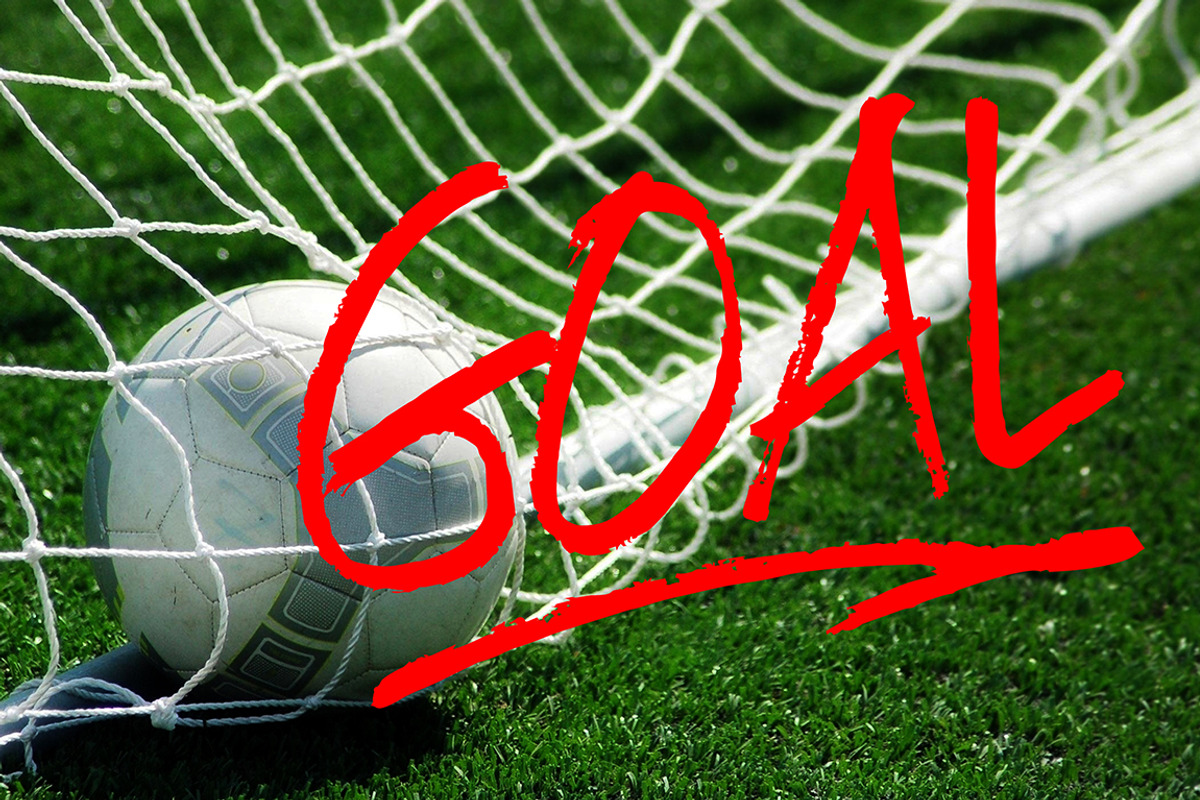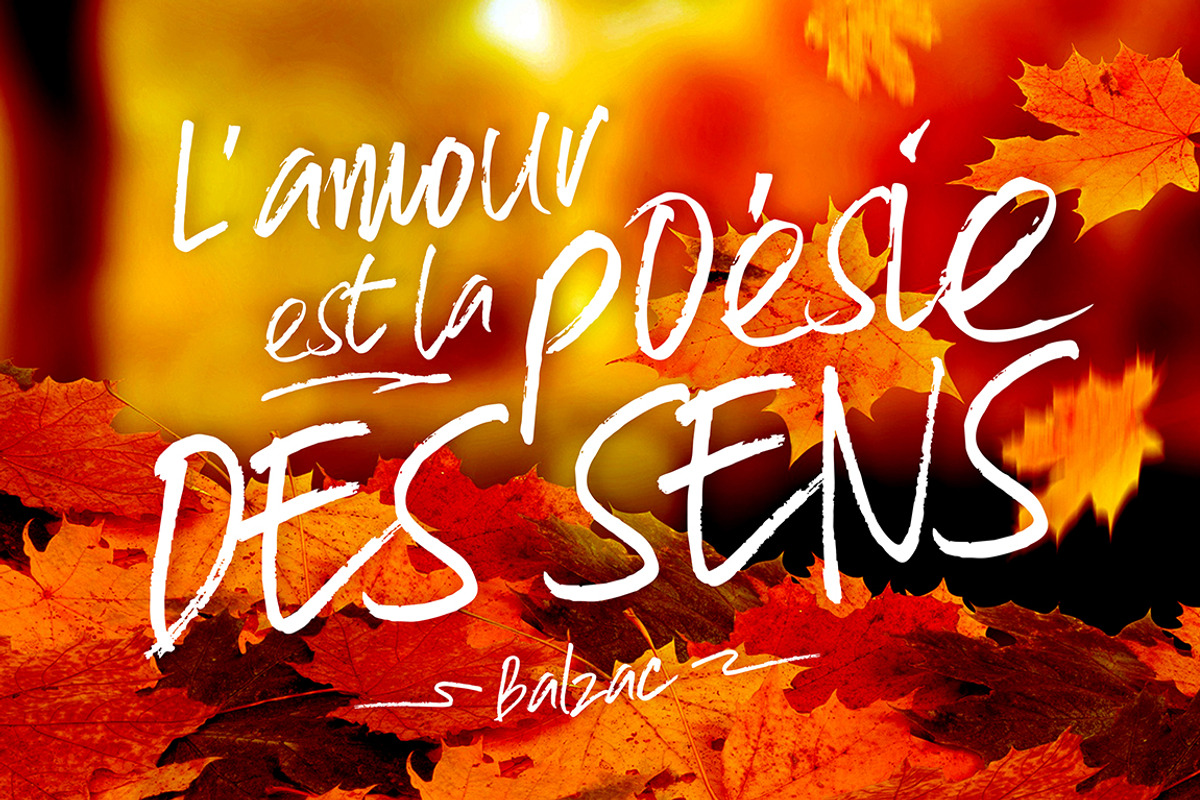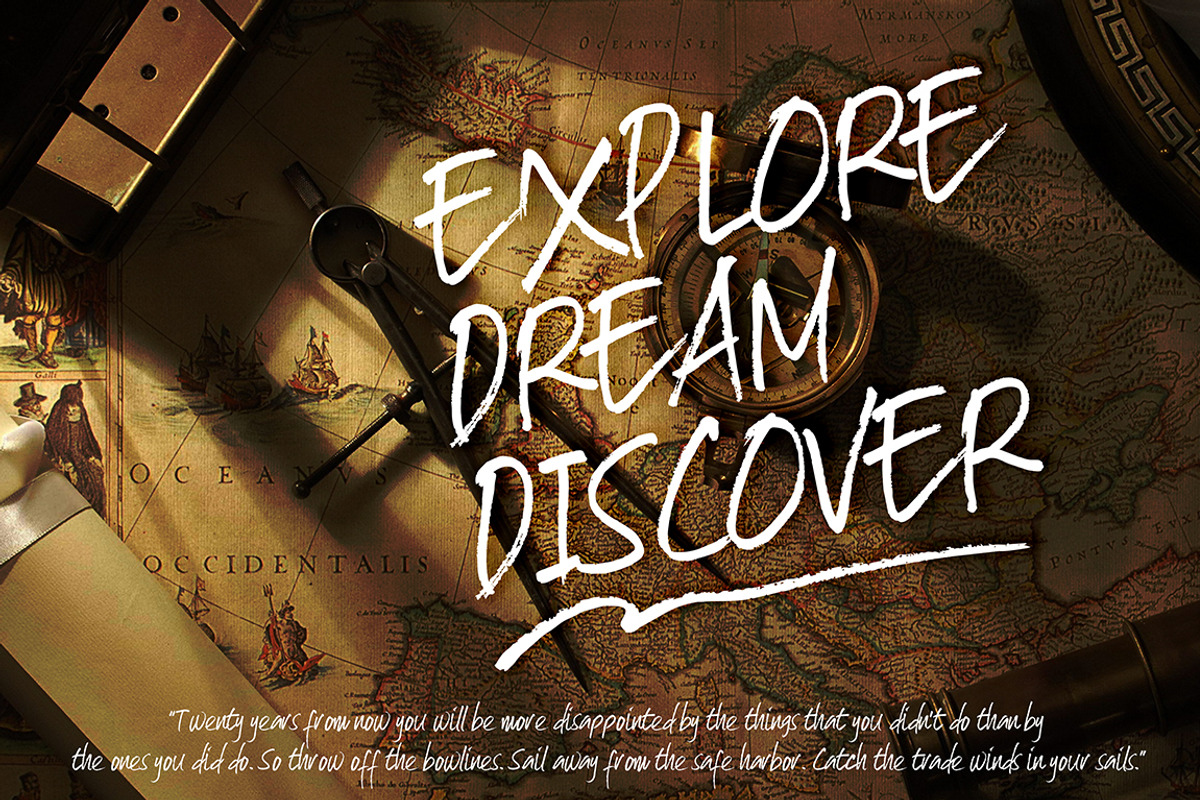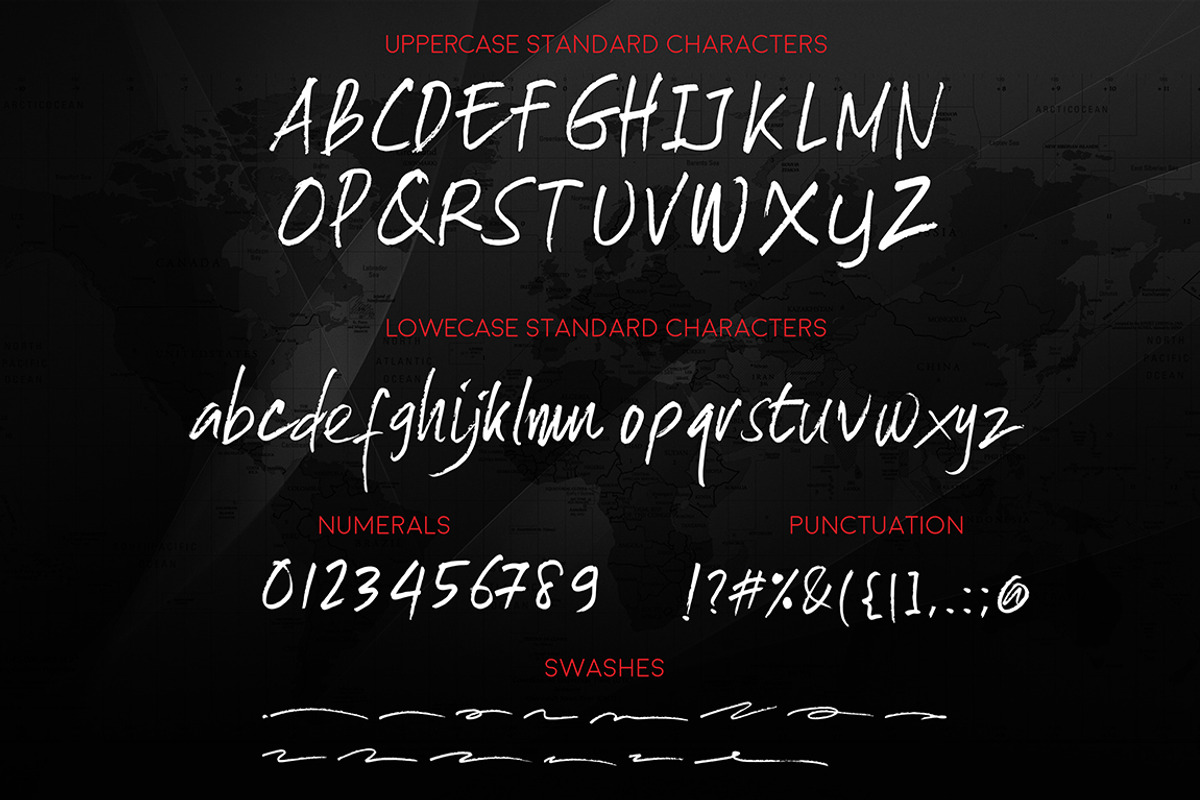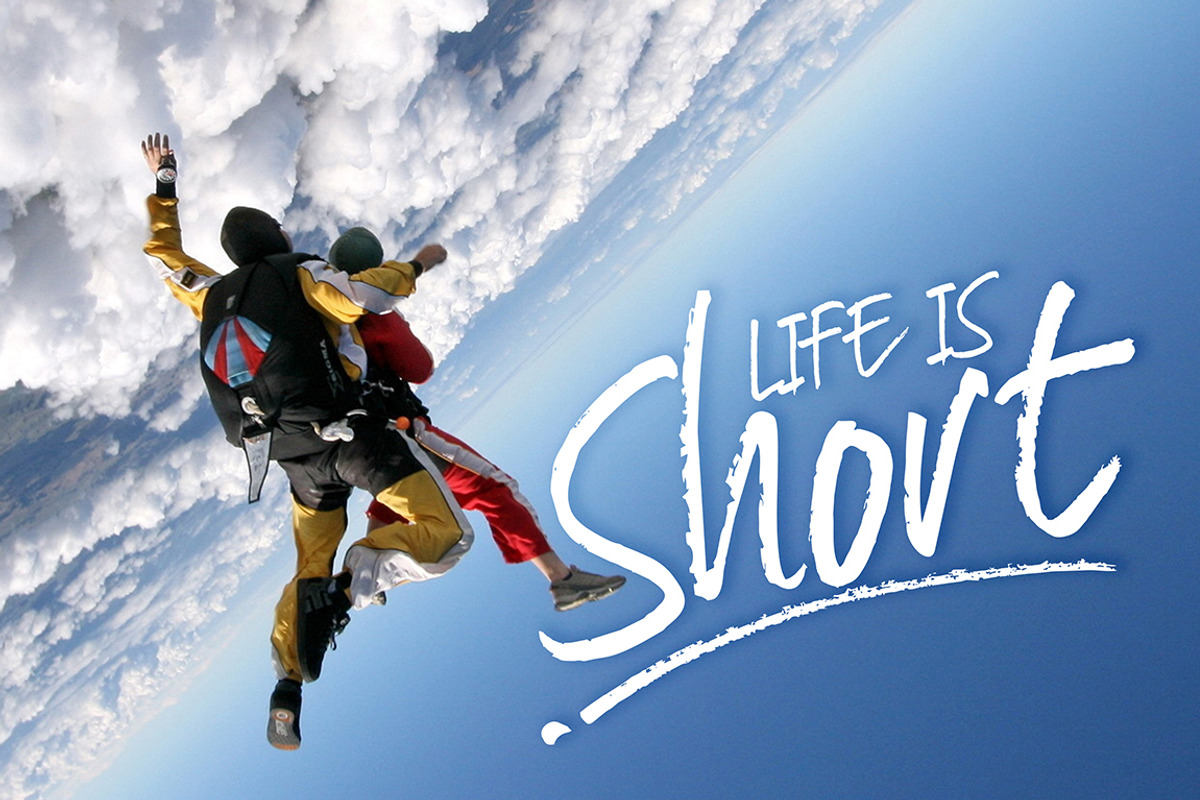
Skyfall Font
Skyfall Font by Mildstudio is a font selected for branding, posters, packaging, typography.
- Comes with upper-case and lowercase characters, basic punctuation, numerals, and supports international languages.
Skyfall Font by Mildstudio fits naturally into Branding, posters, packaging, typography.